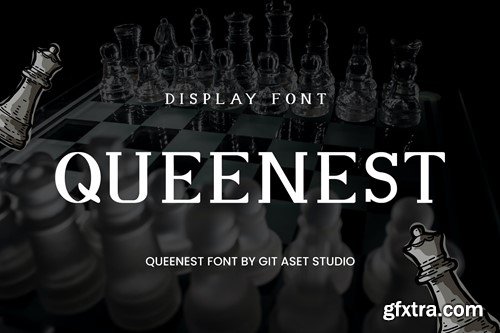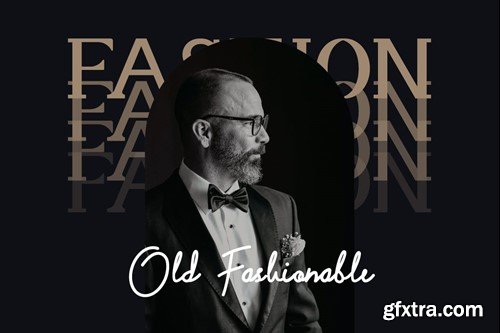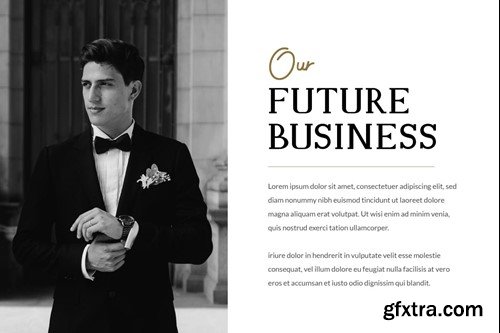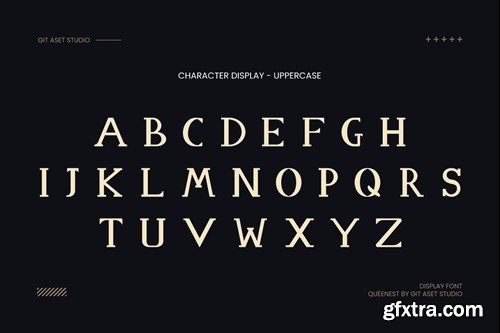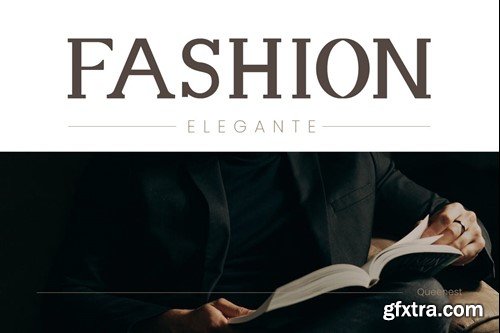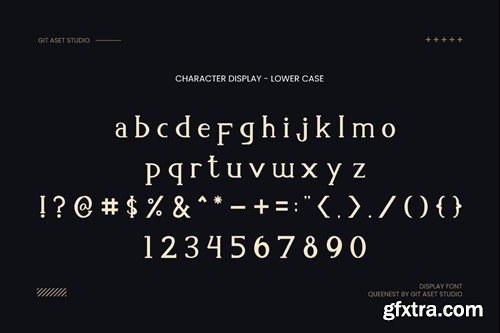
Queenest Elegant Serif Font 6TP8R4V
This Queenest Elegant Serif Font is a stunning addition to any design project. The sleek and sophisticated typeface instantly adds a touch of elegance to your text. Whether it's for a website, logo, or printed materials, this font is sure to impress. This Font is incredibly versatile, making it suitable for a wide range of design projects. It can be used in branding and corporate identity projects to create a professional and polished image. It also works well in editorial design, adding sophistication to magazine layouts or book covers. Suitable for a wide range of design projects, including branding, editorial design, and wedding invitations. Perfect for creating an elegant and romantic atmosphere, as well as luxury product packaging, ideal for graphic designers, web designers, branding specialists, and creatives seeking sophistication in their designs. what includes on ZIP font format ( OTF and TTF) image on preview is just preview (not include on the font ZIP)